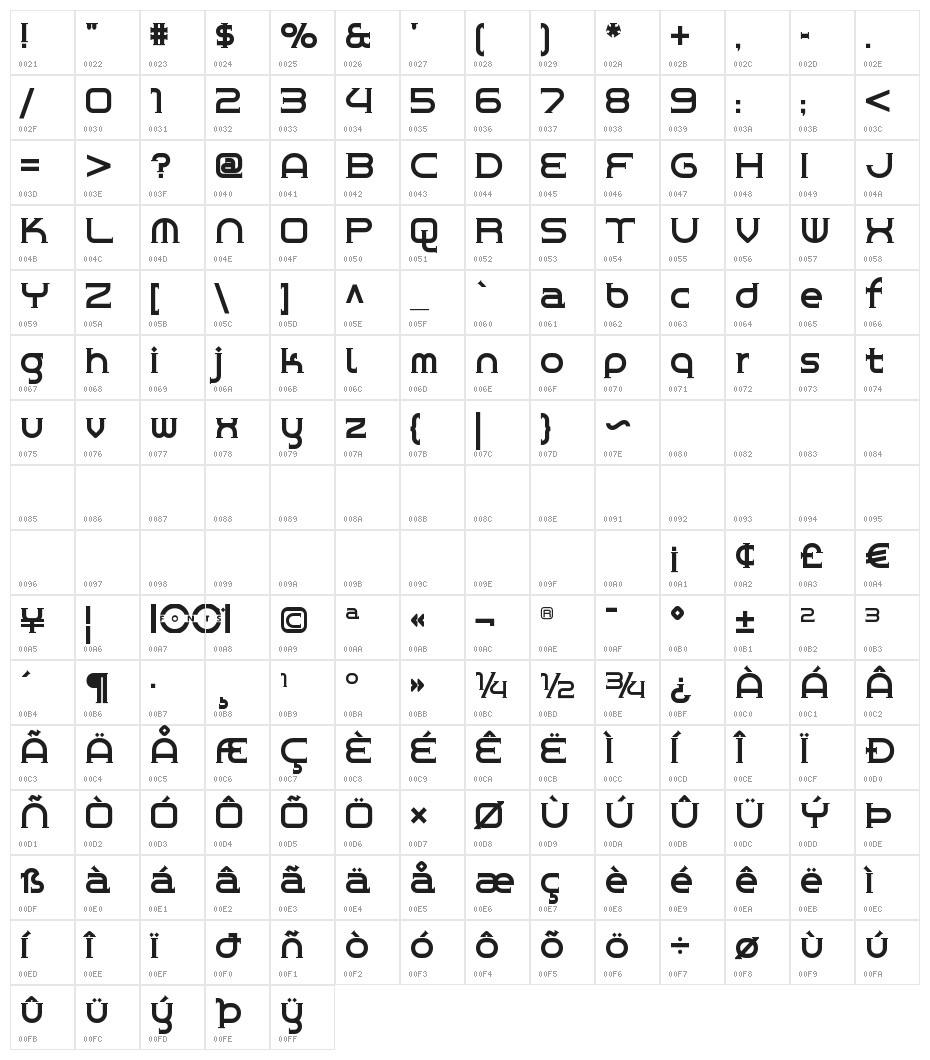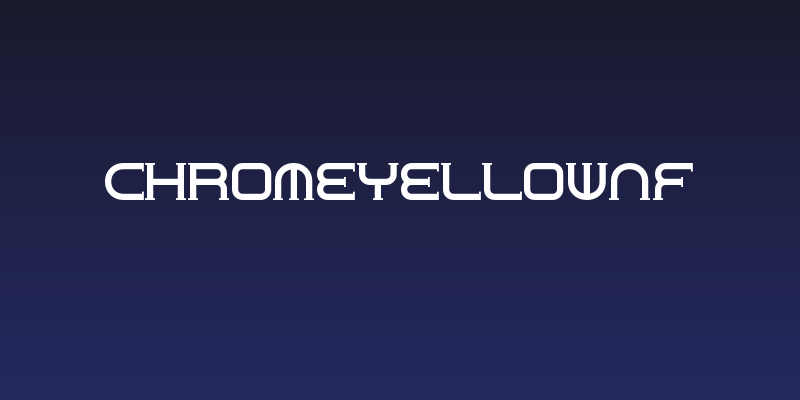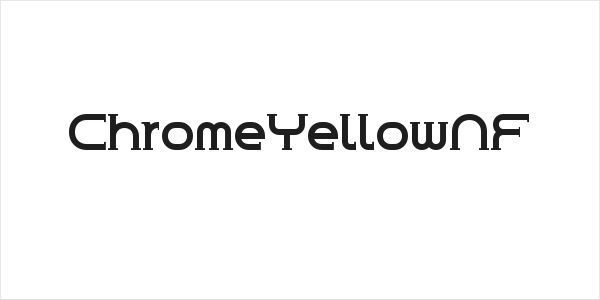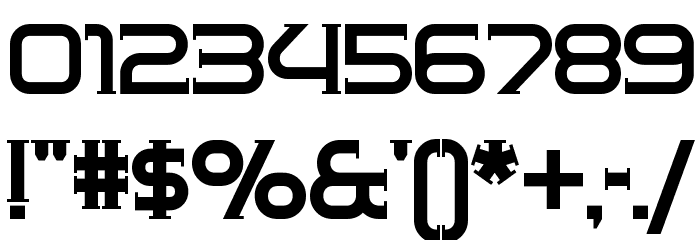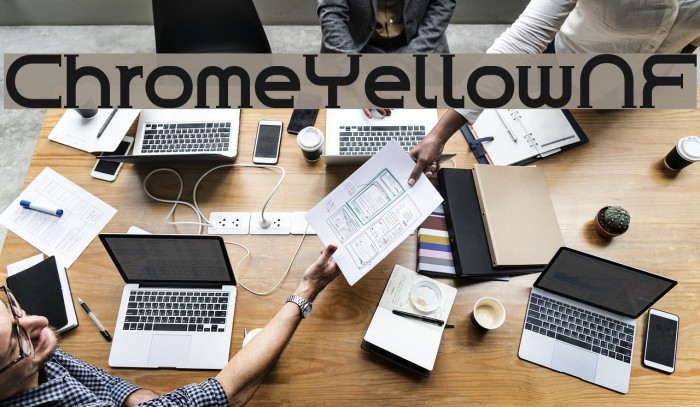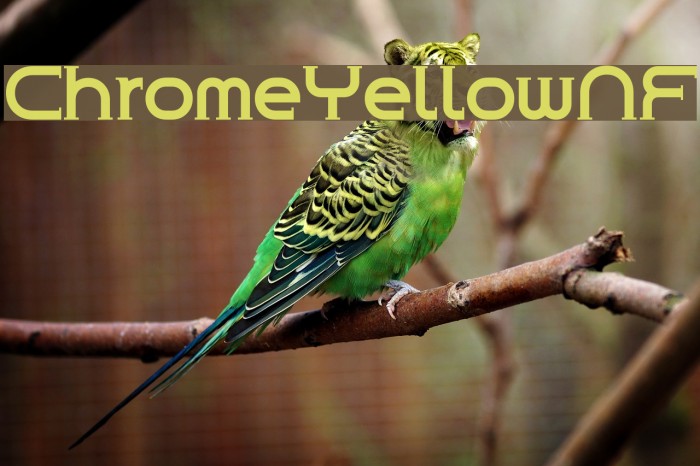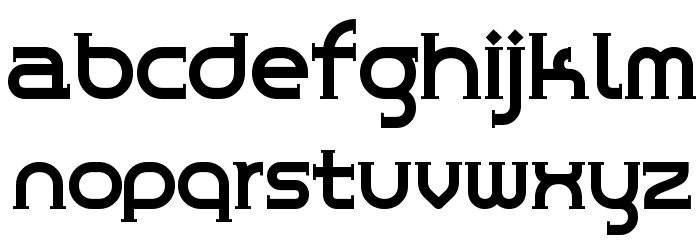
ChromeYellowNF Font
ChromeYellowNF Description
This font features a bold and modern design with a unique geometric flair. The characters are structured with a combination of straight lines and subtle curves, giving it a futuristic and technical appearance. The uppercase letters are particularly striking, with a strong presence and a slightly condensed form. The lowercase letters maintain a consistent style, offering a harmonious balance with the uppercase. Numerals are clear and distinct, making them easily readable. Special characters are designed to match the overall aesthetic, ensuring a cohesive look across all text elements. This font is ideal for projects that require a modern and innovative touch.
| Use Case | Headlines, Logos, Digital Interfaces |
| Proposed Projects | Ideal for technology branding, modern advertising, digital interfaces, and innovative product packaging. |